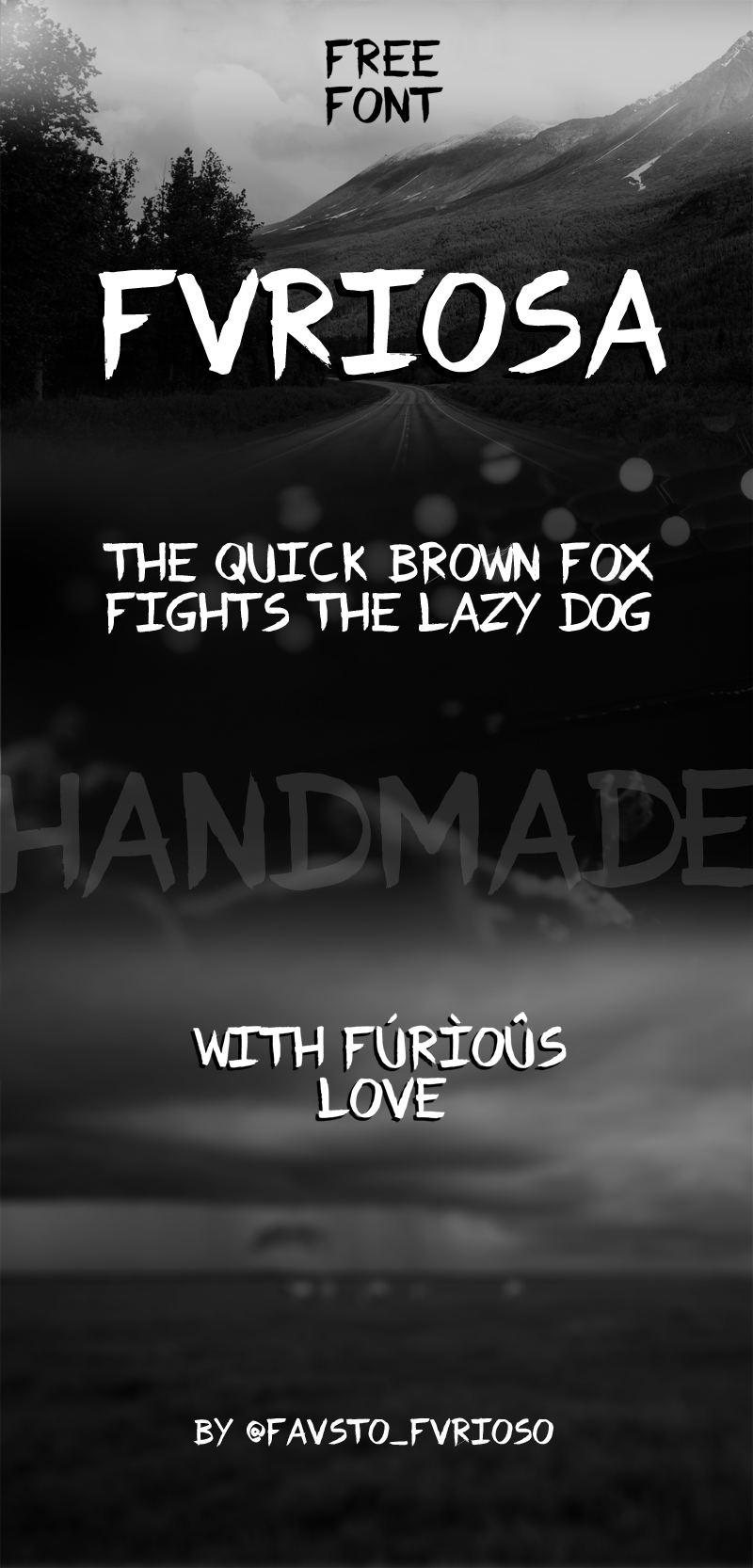
Preview and download Fvriosa Font. Created by Fausto Furioso in Script Brush styles with 100% Free license.
Font name: | Fvriosa |
Author: | Fausto Furioso |
Note by Fausto Furioso | |
Free Handmade Brush Script font, made with furious love by Fausto Furioso. |